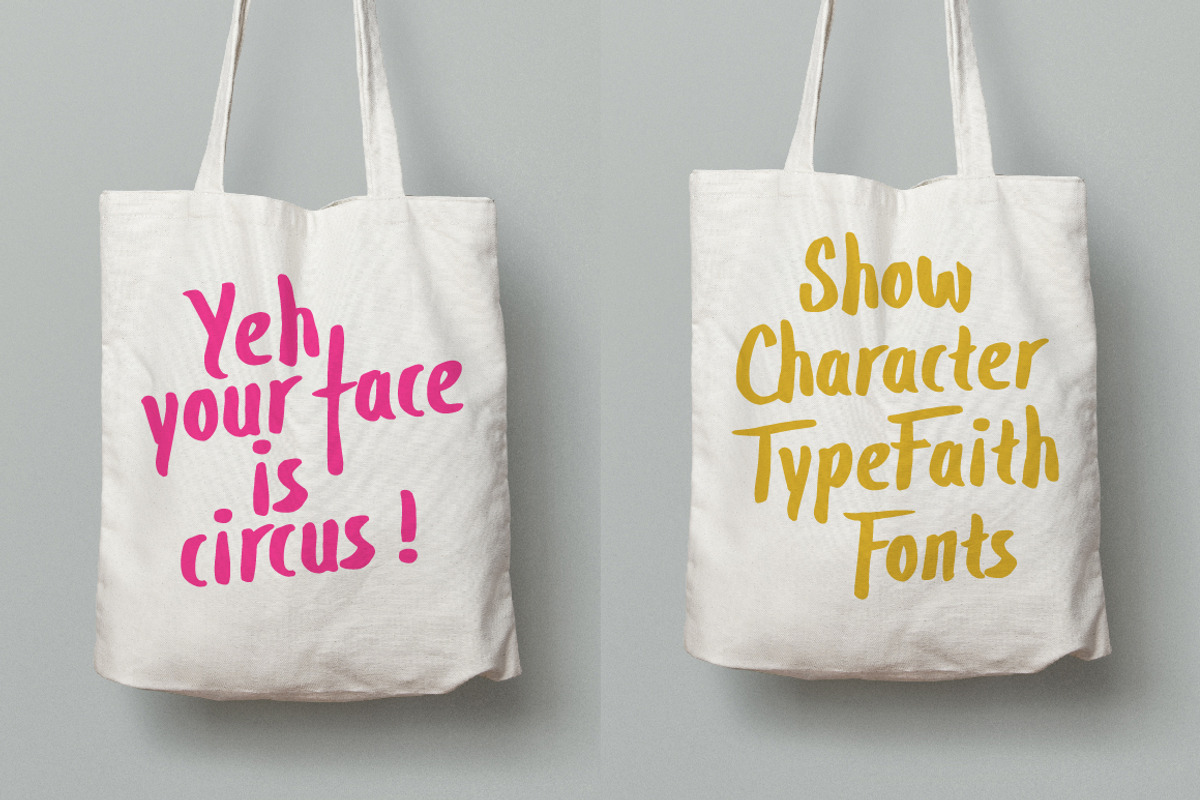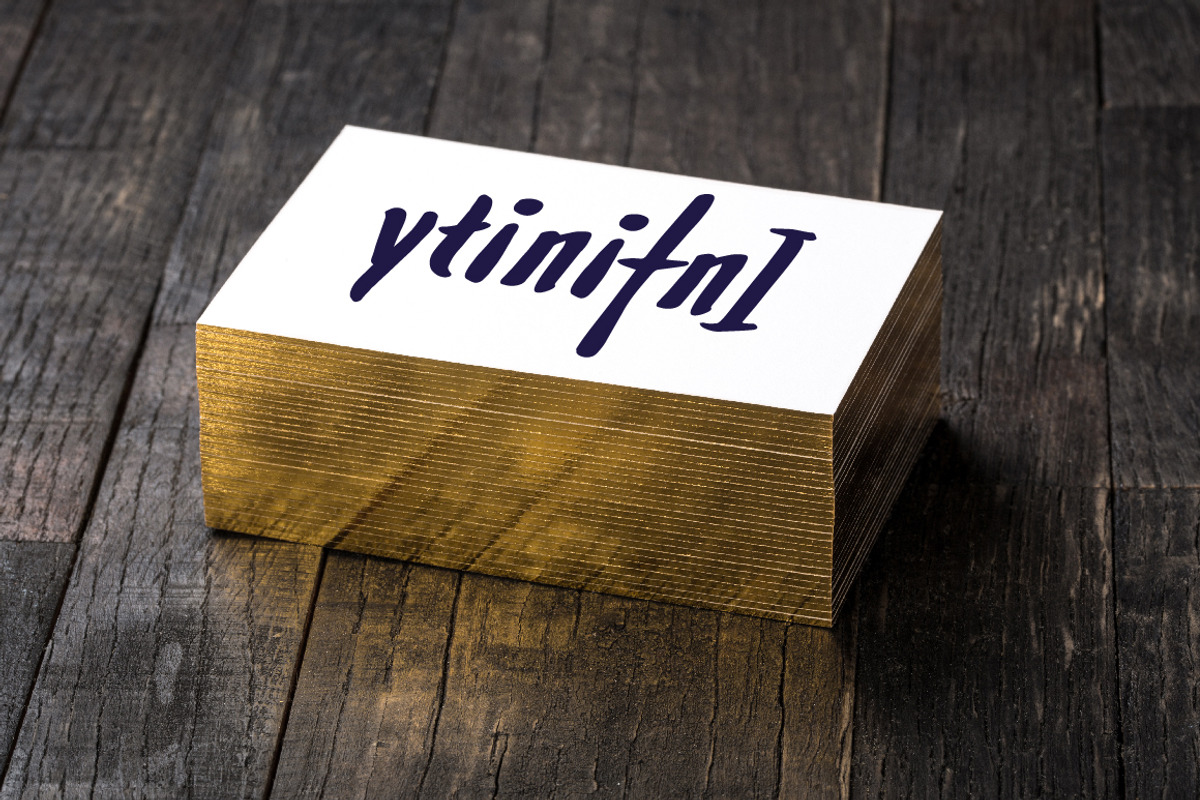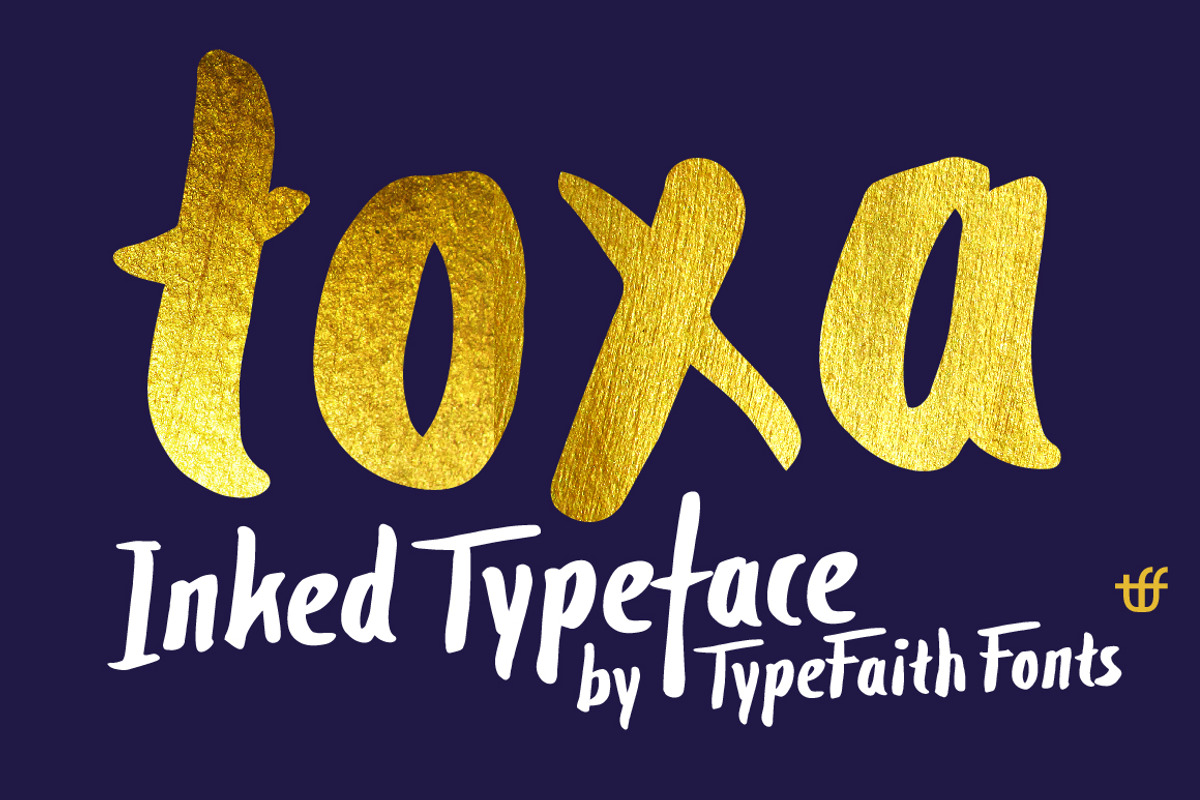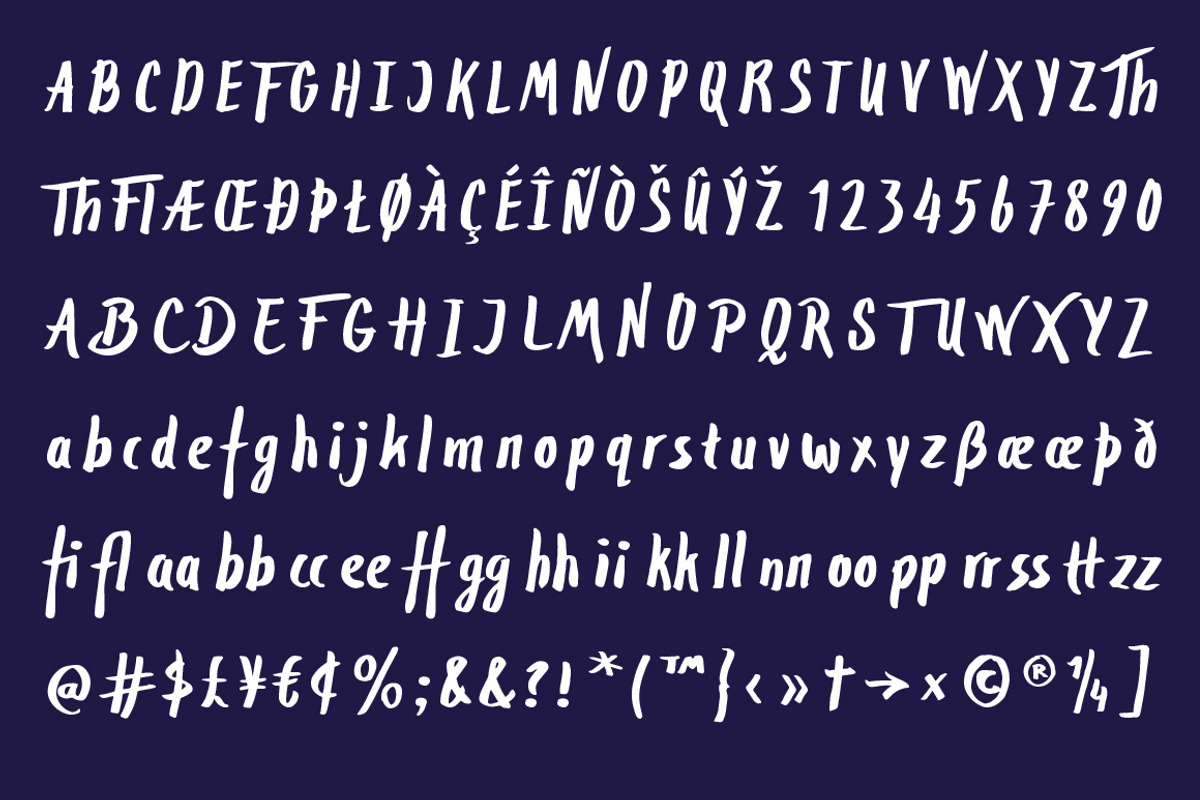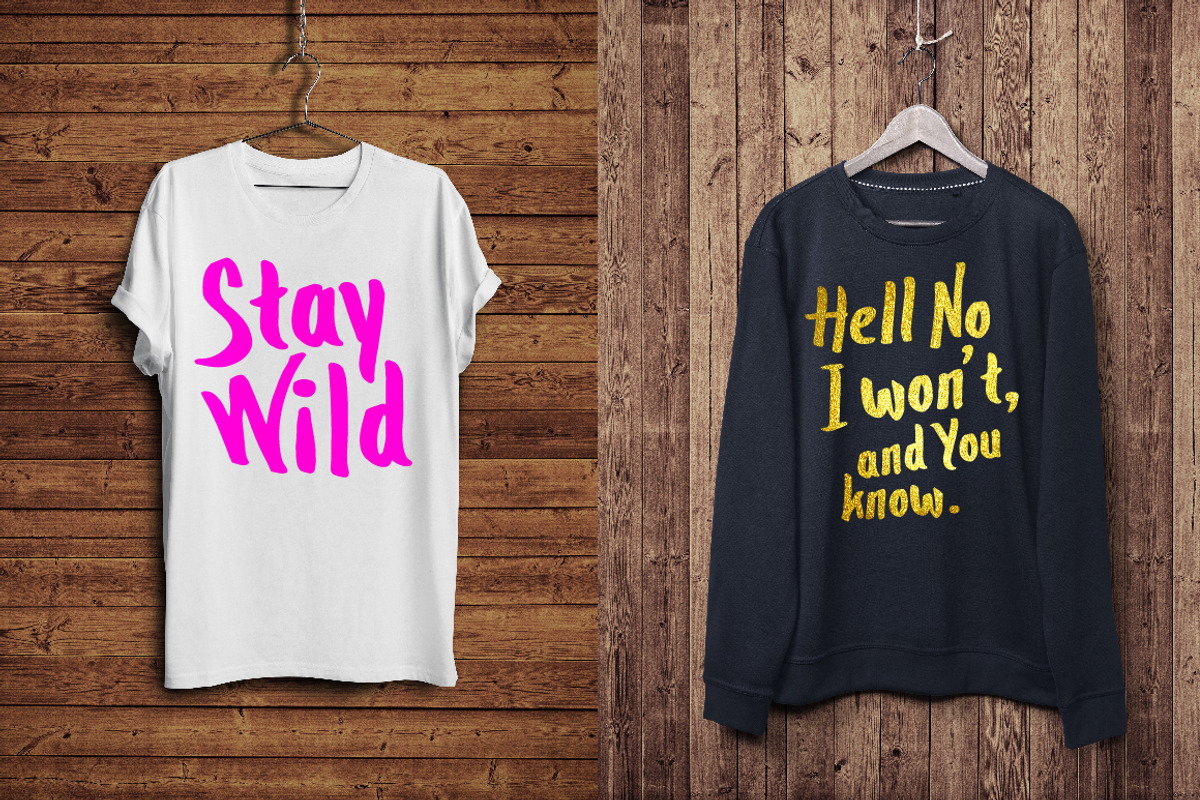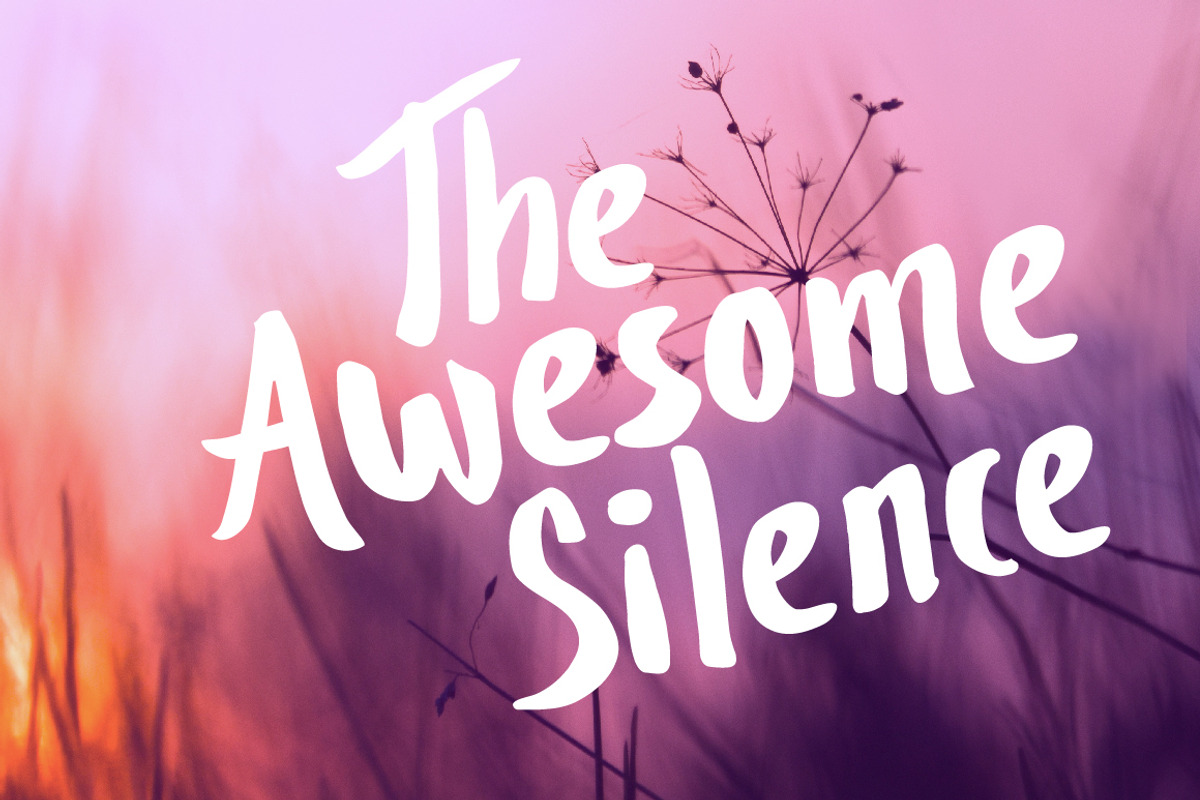
Toxa Ink
Toxa Ink by TypeFaith Fonts is a font selected for branding, posters, packaging, typography.
- Toxa Ink is a simple handdrawn typeface with one set of alternates for all capitals and a set of ligature to replace double characters.
Why Toxa Ink is worth a look
Toxa Ink by TypeFaith Fonts fits naturally into Branding, posters, packaging, typography.